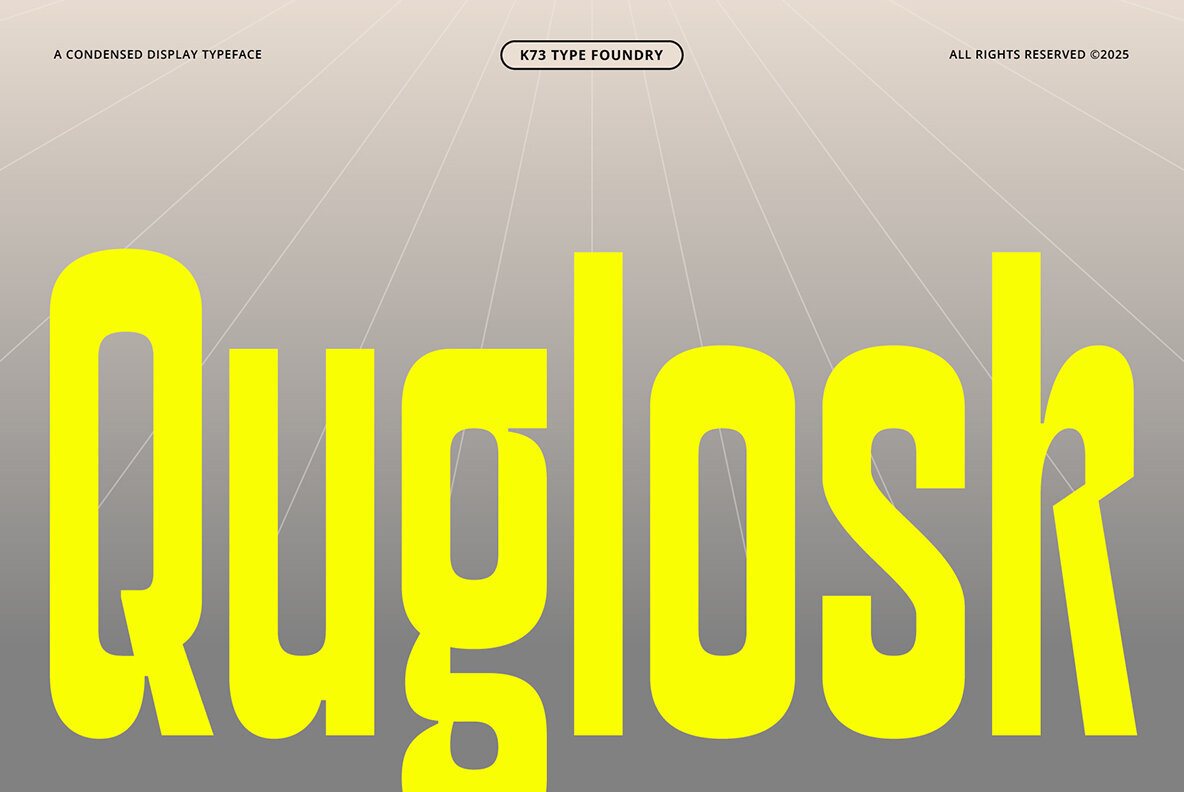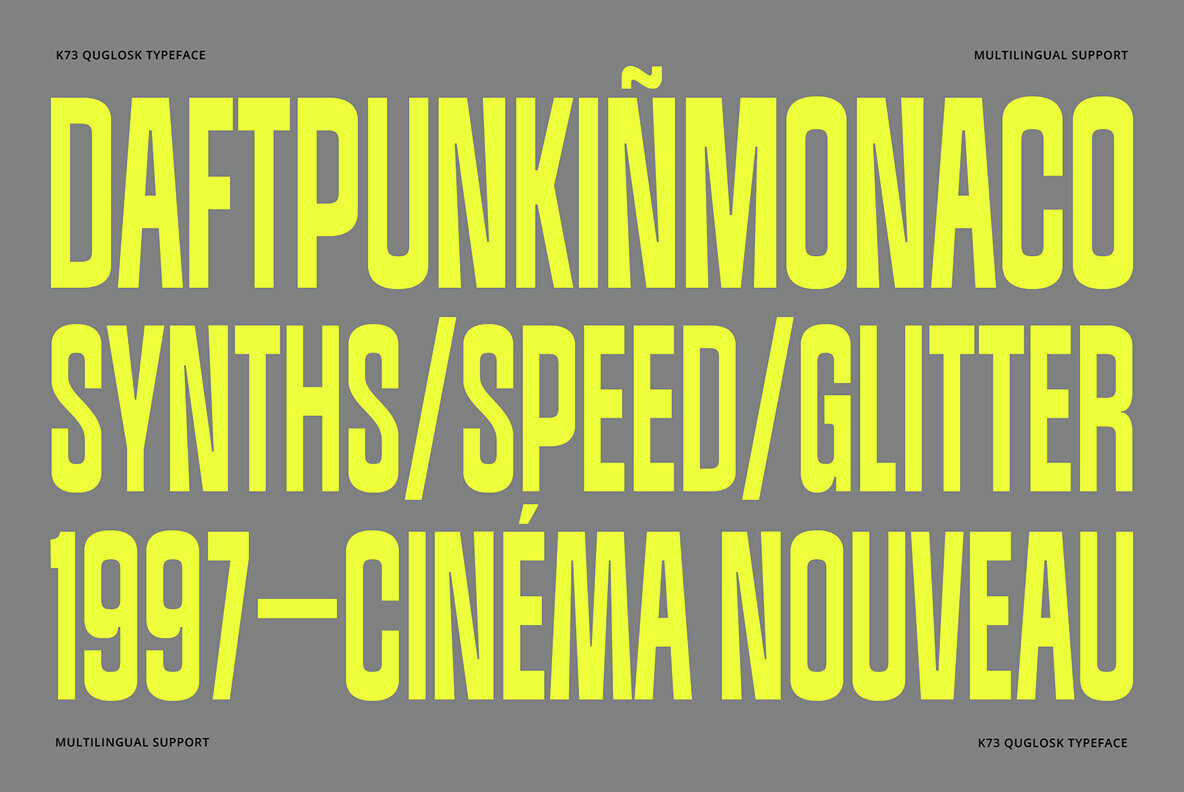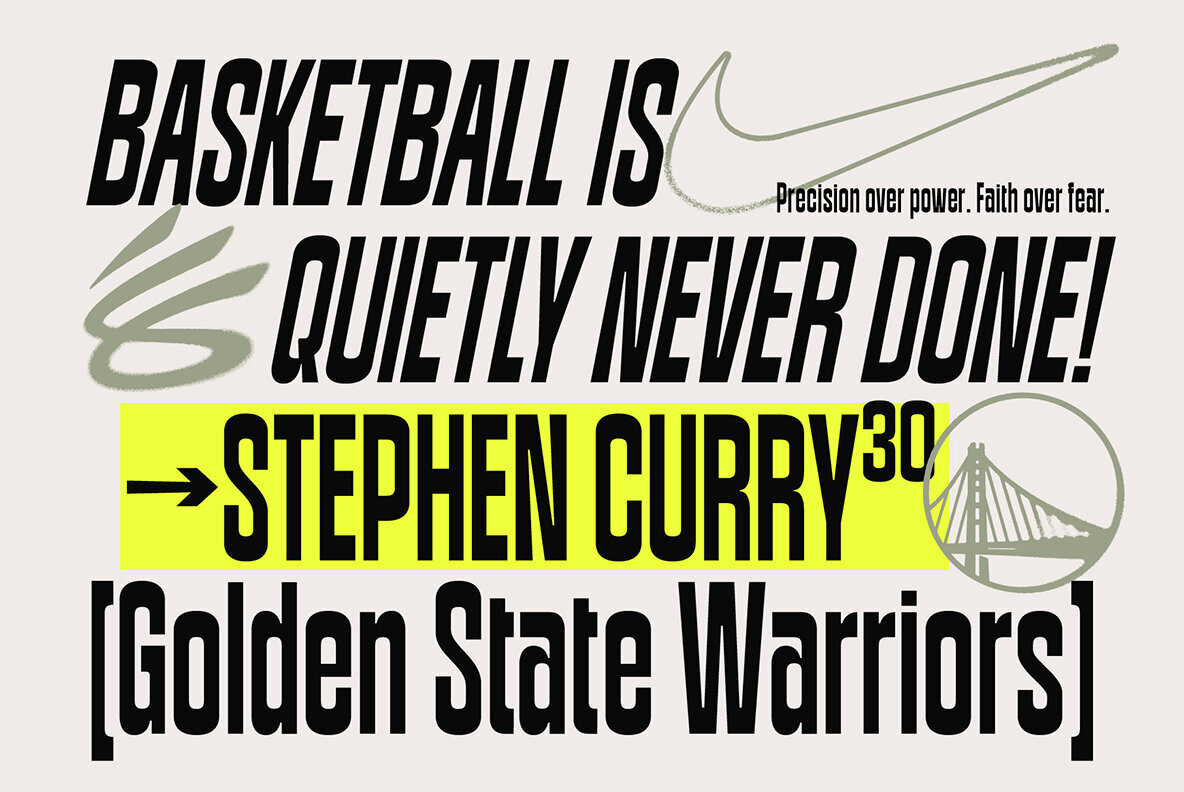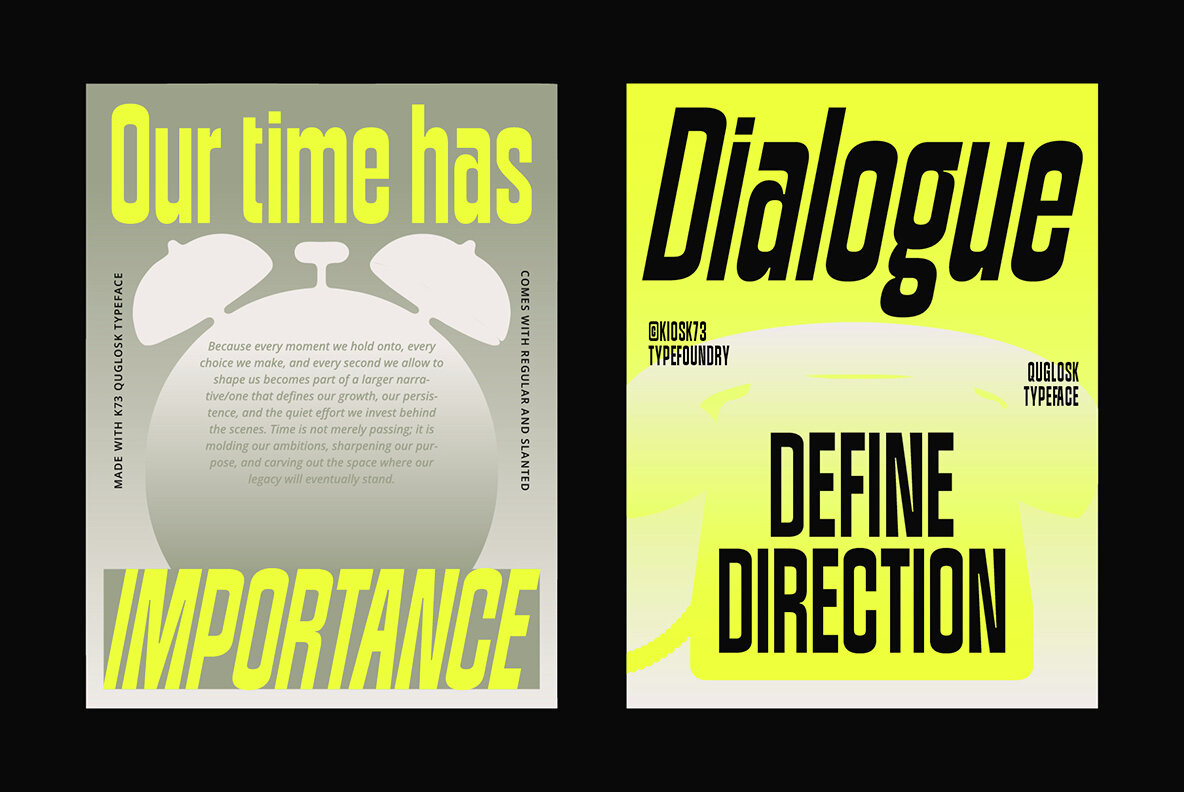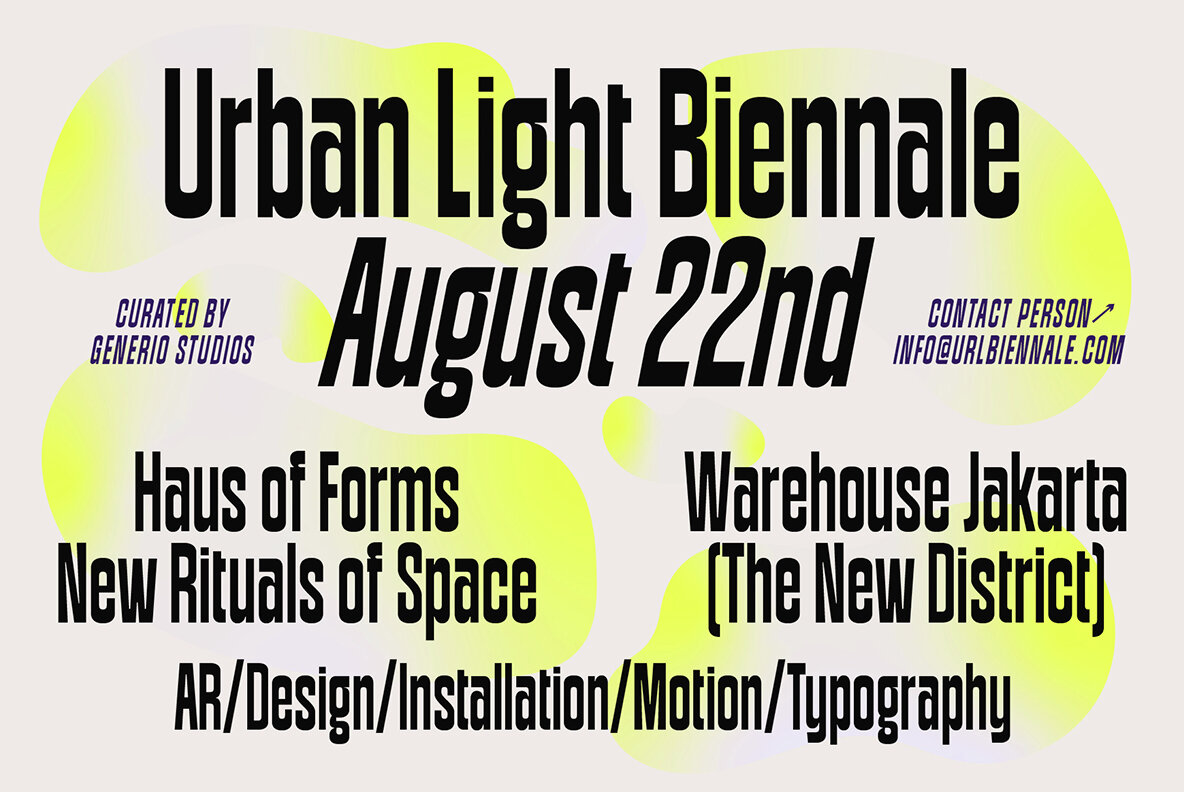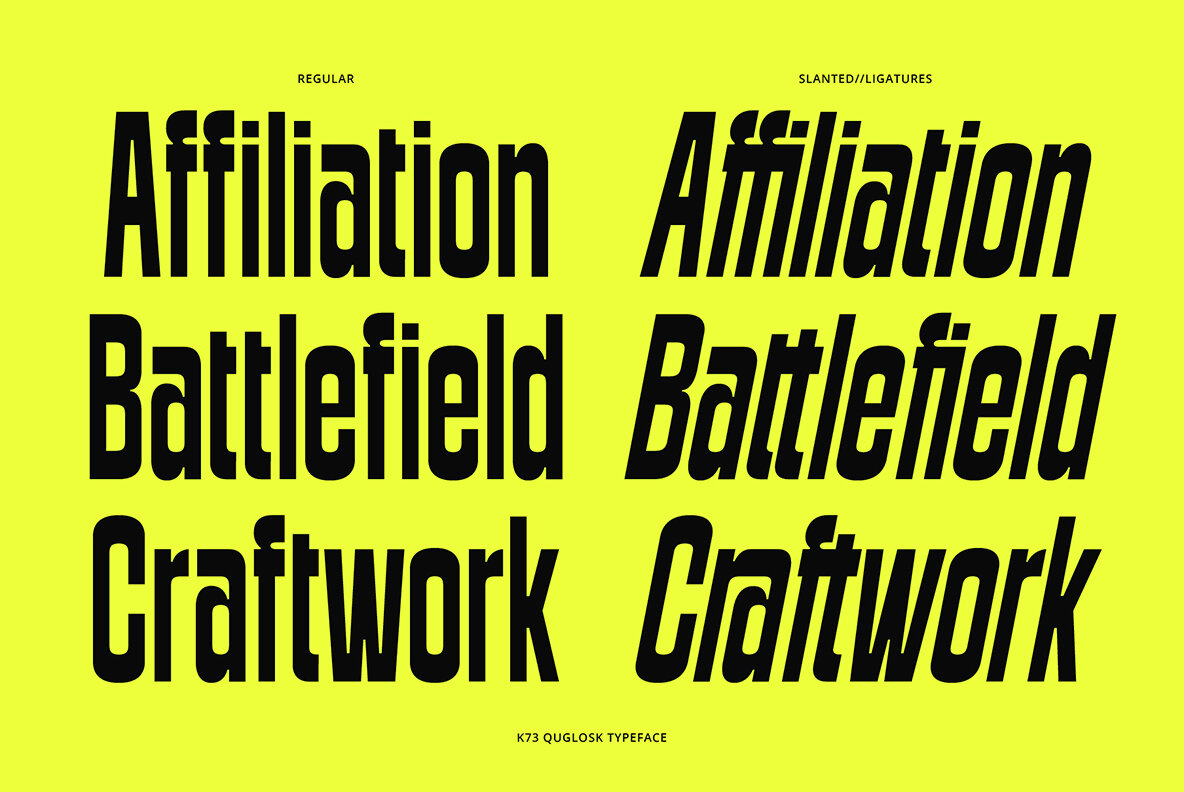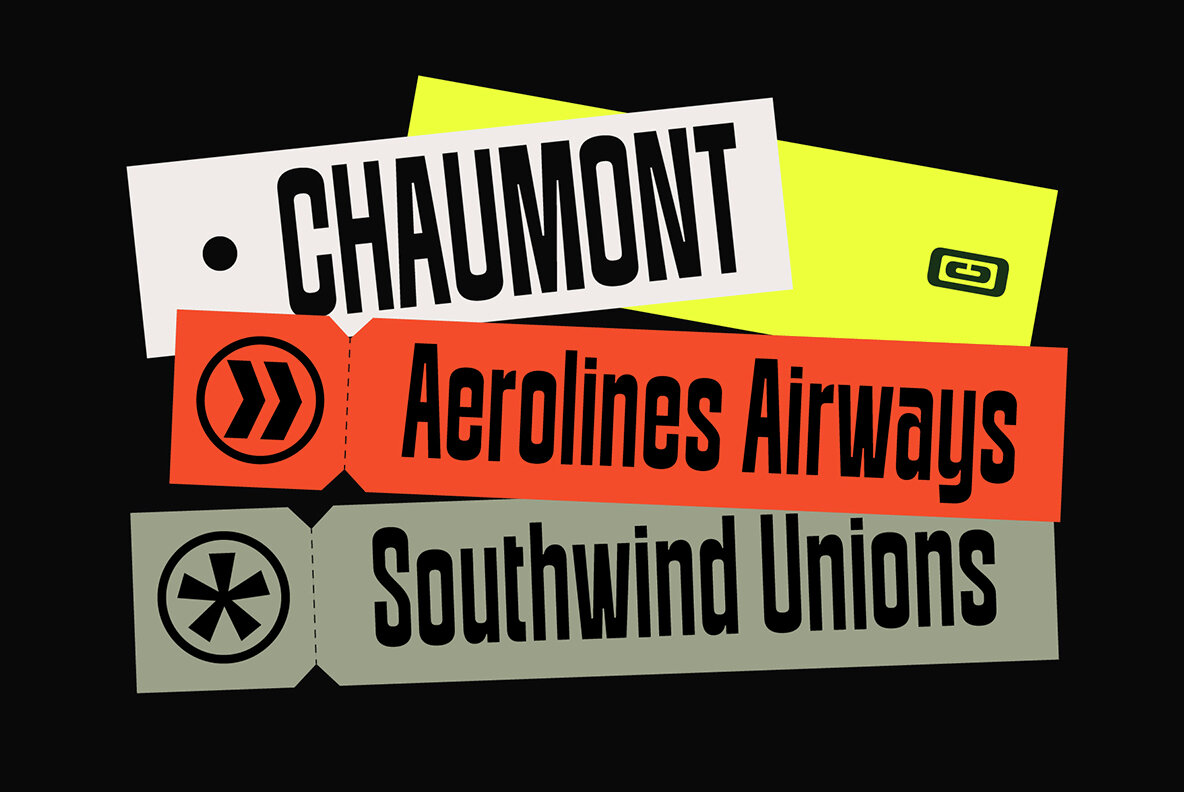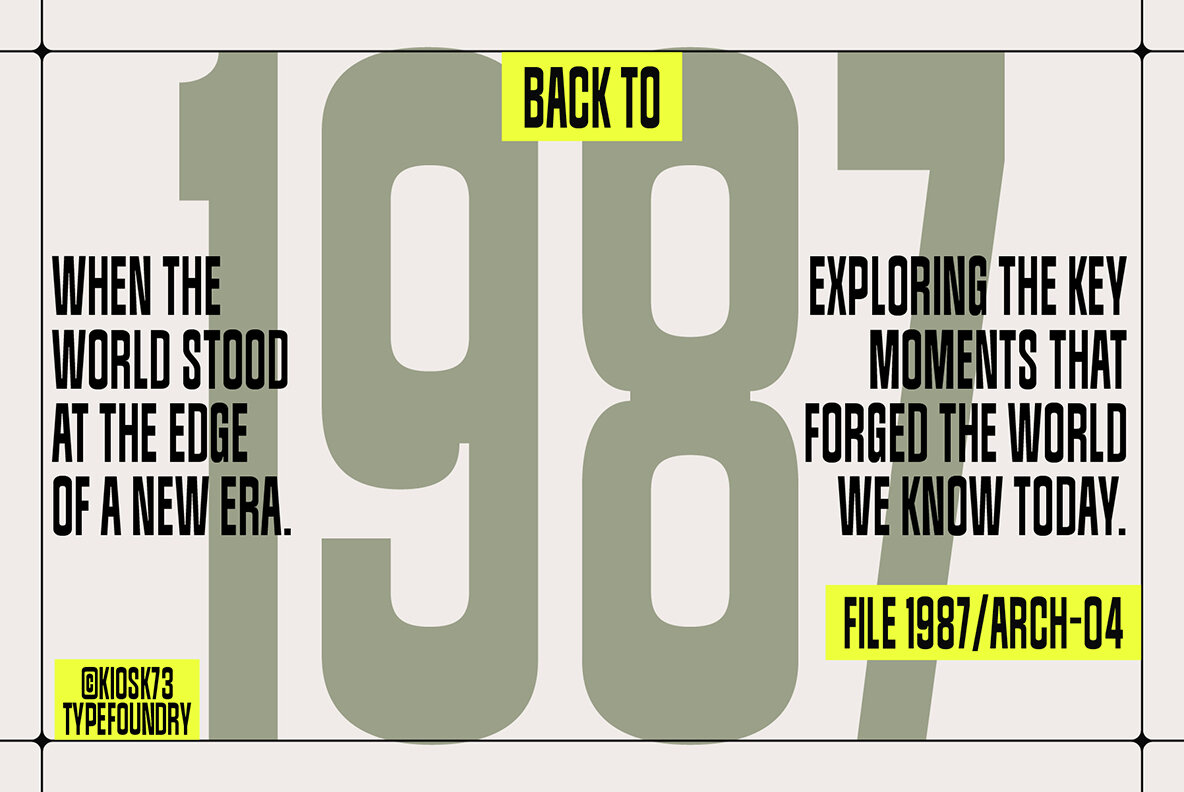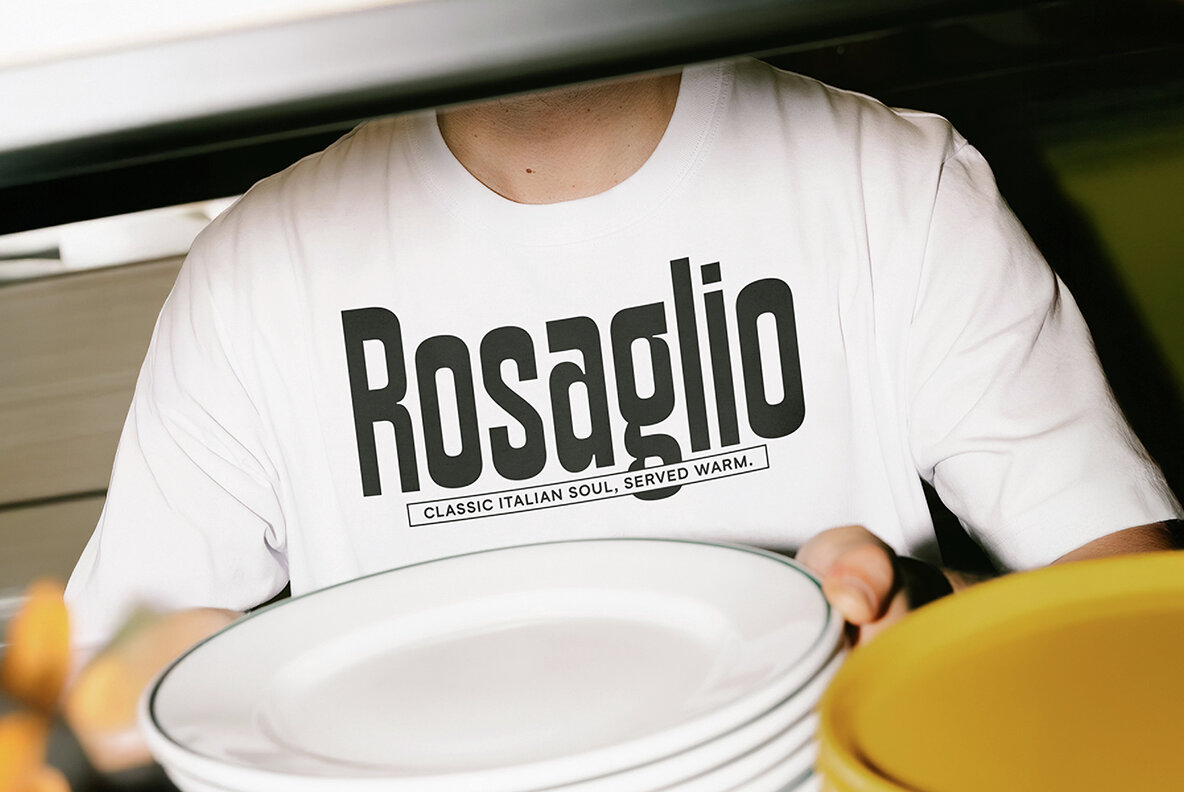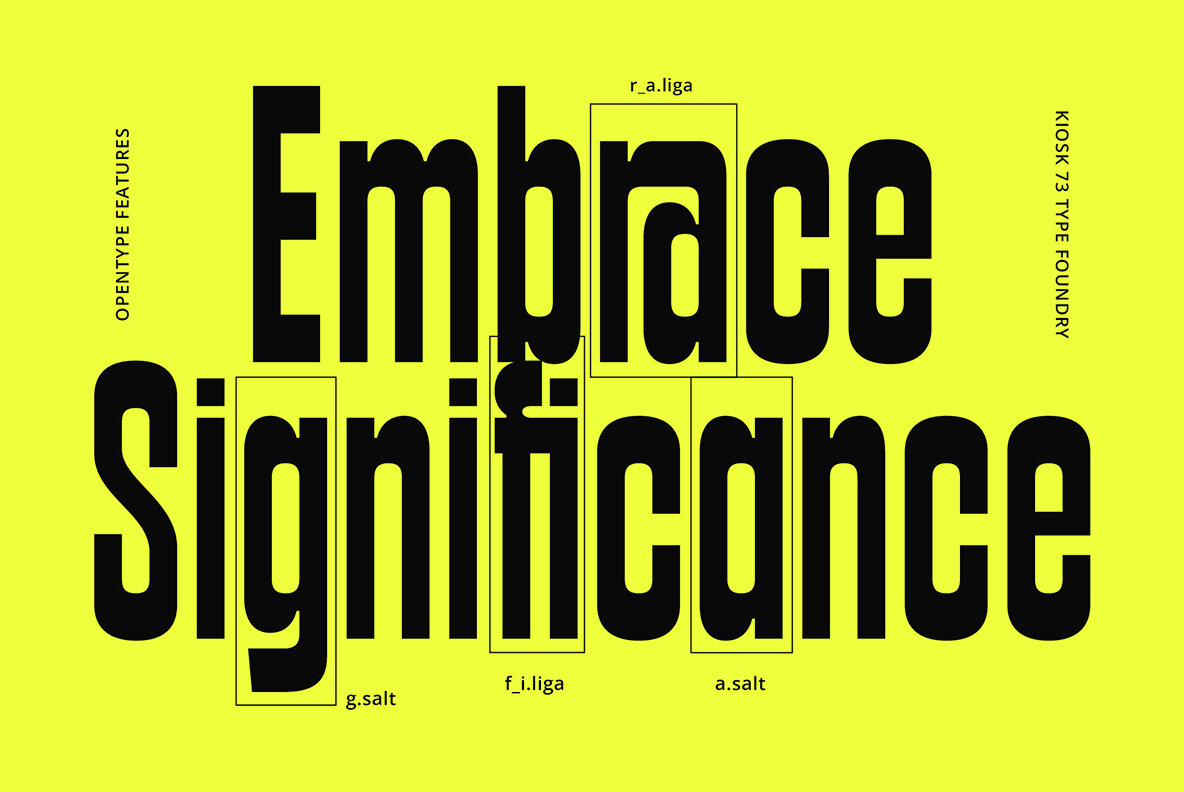
K73 Quglosk Font
K73 Quglosk stands out with its condensed silhouette, designed for projects where impact and efficiency are paramount. This display typeface features tall, tightly constructed letterforms, ensuring that every character commands attention without overwhelming the visual space. Its modern geometry and vertical intensity make it especially suited for striking headlines and contemporary editorial designs. Perfect for branding systems that require clear distinction, K73 Quglosk adapts seamlessly to posters, signage, and visual identities that demand high legibility in limited space. The deliberate compactness of the typeface allows designers to emphasize key messages while maintaining a clean and cohesive look.K73 Quglosk: Condensed Display Typeface for Bold Headlines